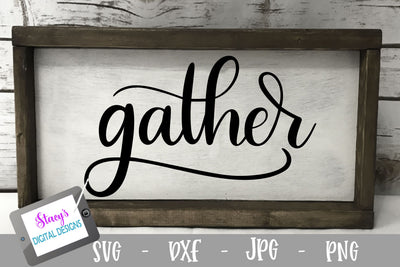
Gather SVG - Handlettered Home Decor SVG
This handlettered SVG design would be the perfect addition to your home decor. Use your Cricut or Silhouette (or other cutting machine) to create a beautiful wall hanging for your family room, dining room, or kitchen. Your house is a perfect place to gather together to enjoy the company of family and friends.